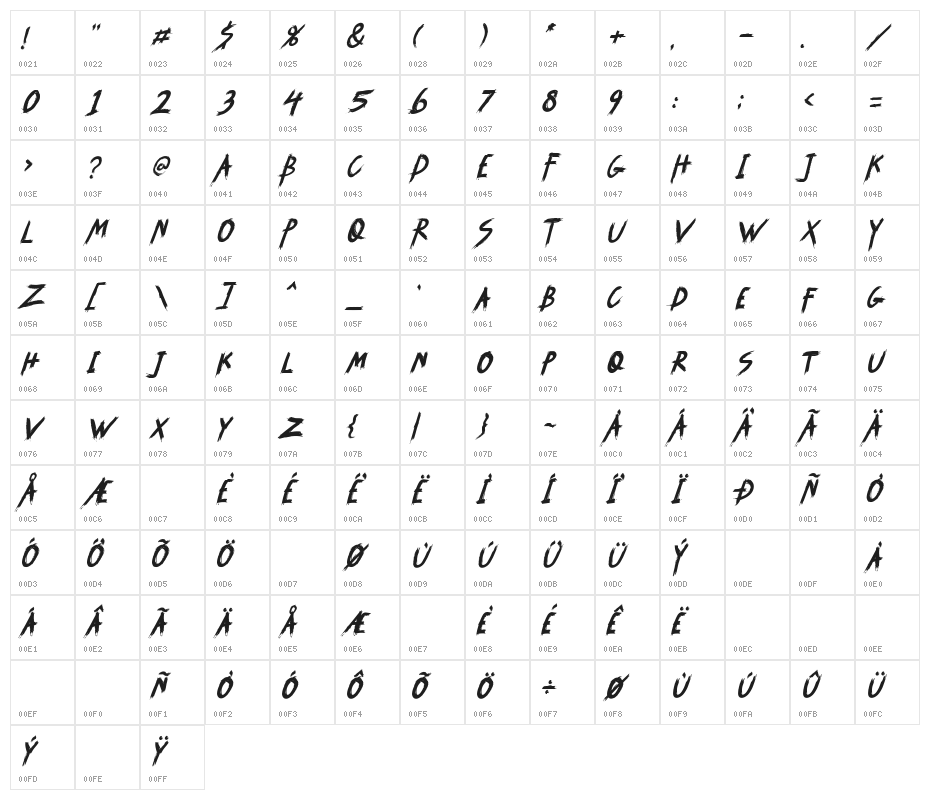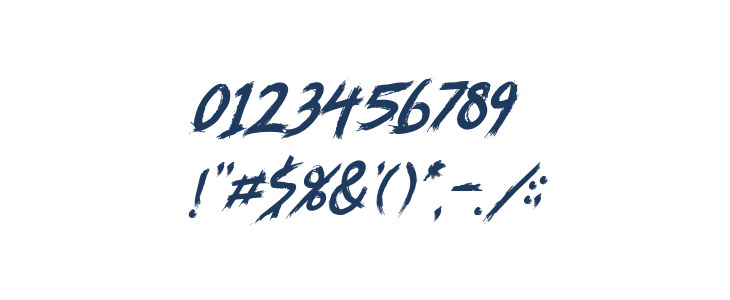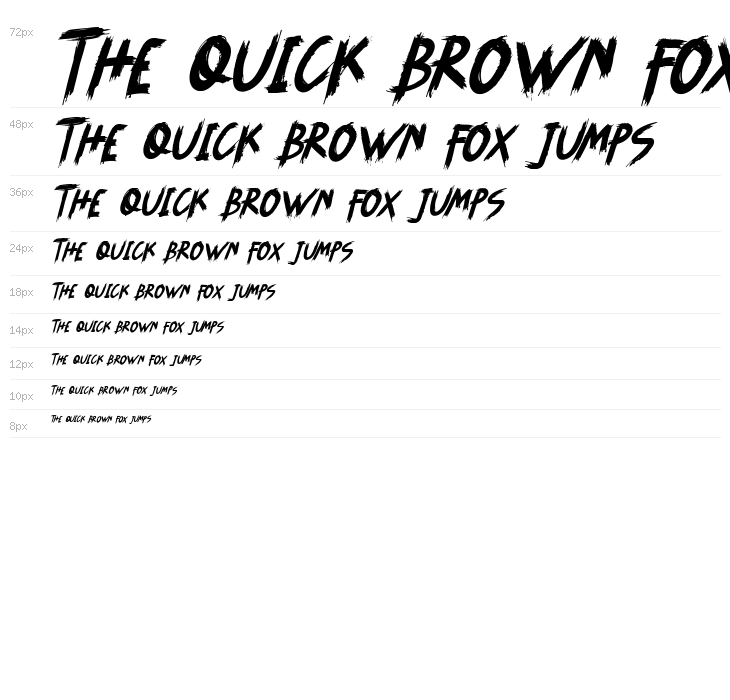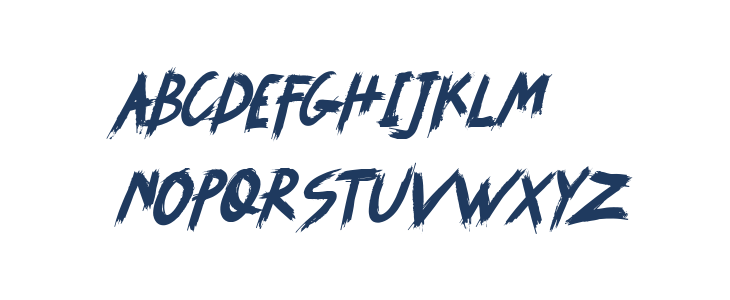
SYEMOX italic Italic Font
SYEMOX italic Italic Description
This font features a bold and dynamic brush style, characterized by its sharp, angular strokes and energetic flow. The letters are slanted, giving a sense of motion and urgency, while maintaining a consistent thickness throughout. The uppercase and lowercase letters share a cohesive design, with exaggerated serifs and pointed edges that enhance its aggressive appearance. Numbers and special characters follow the same stylistic approach, ensuring uniformity across all glyphs. This font's raw and expressive nature makes it stand out, perfect for projects that require a strong visual impact.
| Proposed Projects | Ideal for music album covers, sports team branding, graffiti art, and dynamic poster designs. |